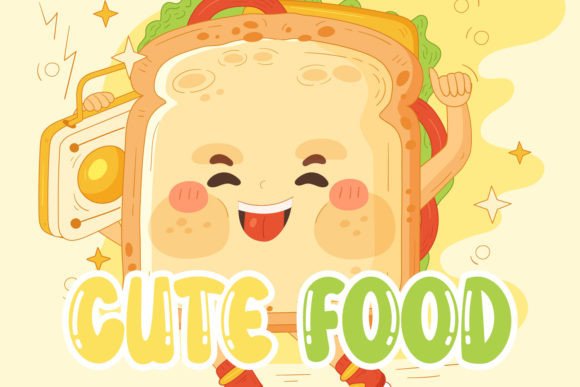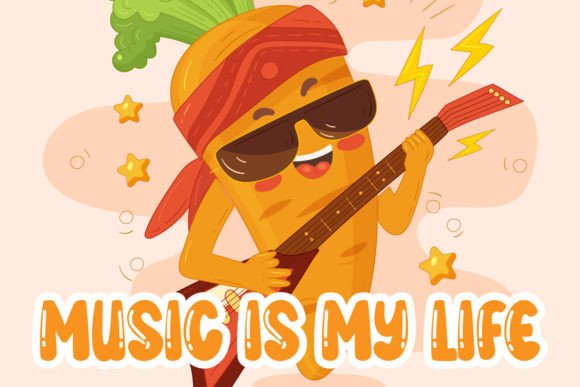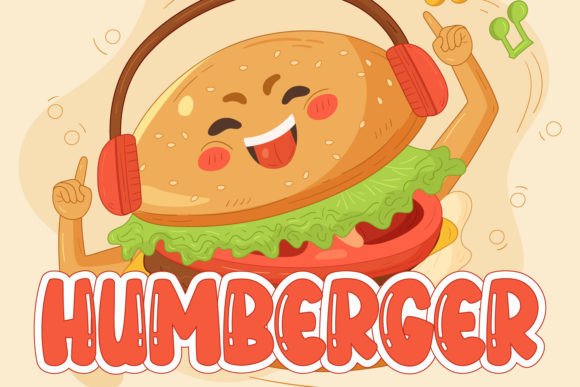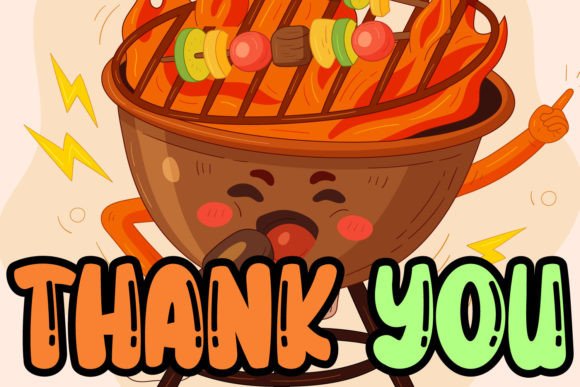
Introducing Chees Cake Font: The Perfect Addition to Your Design Collection
Are you tired of using the same old fonts in your designs? Look no further than Chees Cake Font, a brilliant, fun, and cute display font that’s sure to make your projects stand out. With its playful and charming vibe, Chees Cake is perfect for designers and crafters who want to add a touch of whimsy to their work.
What Makes Chees Cake Font So Special?
Chees Cake Font is a display font that’s designed to grab attention. Its unique and quirky style makes it perfect for use in a variety of design projects, from children’s party invitations to social media graphics and more. The font’s bold and playful appearance is sure to delight audiences of all ages, making it an excellent choice for designers who want to create engaging and memorable content.
Perfect for Children-Themed Designs
One of the standout features of Chees Cake Font is its suitability for children-themed designs. The font’s fun and playful style is reminiscent of childhood, making it perfect for use in projects such as:
- Children’s party invitations and decorations
- Kids’ clothing and accessory designs
- Children’s book titles and illustrations
- Educational materials and worksheets
When paired with bright colors, Chees Cake Font really comes alive, creating a visually appealing and engaging design that’s sure to capture the attention of kids and adults alike.
Why Choose Chees Cake Font?
So why choose Chees Cake Font over other display fonts on the market? Here are just a few reasons why designers and crafters love this font:
- Unique Style: Chees Cake Font has a one-of-a-kind style that’s sure to make your designs stand out from the crowd.
- Versatility: This font can be used in a wide range of design projects, from digital graphics to print materials.
- Easy to Read: Despite its playful style, Chees Cake Font is easy to read, making it perfect for use in titles, headings, and other design elements.
- Fun and Engaging: This font is sure to bring a smile to your audience’s faces, making it perfect for designs that require a playful touch.
Tips for Using Chees Cake Font
To get the most out of Chees Cake Font, here are a few tips to keep in mind:
- Pair with Bright Colors: Chees Cake Font really comes alive when paired with bright, bold colors. Try using it with colors like pink, blue, yellow, and green to create a fun and playful design.
- Use for Headings and Titles: This font is perfect for use in headings and titles, where its bold and playful style can really make an impact.
- Experiment with Different Sizes: Chees Cake Font looks great in a variety of sizes, from large display fonts to smaller, more subtle text. Experiment with different sizes to find the one that works best for your design.
Chees Cake Font is a brilliant, fun, and cute display font that’s perfect for designers and crafters who want to add a touch of whimsy to their work. With its unique and quirky style, this font is sure to make your designs stand out from the crowd. Whether you’re working on a children’s-themed project or just want to add some fun and personality to your design, Chees Cake Font is an excellent choice. So why not give it a try and see the difference it can make in your designs?